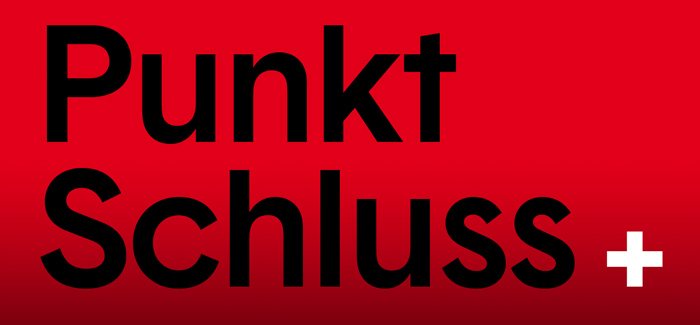
Basetica Pro font
Basetica Pro font aims to be the Helvetica for 2013.
It has been designed for the project ‘Open Switzerland’, by Base design (www.basedesign.com), which wants to conciliate a commitment to ‘Swiss’ graphic design — with all its quality of precision and rigour – with a contemporary view of Switzerland, far from its common stereotypes.
Open minded, neat and modern, sometimes a bit raw, but always clean and discrete, Basetica pro font ironically recalls the ‘Swiss International Style’ of the 50s and 60s.